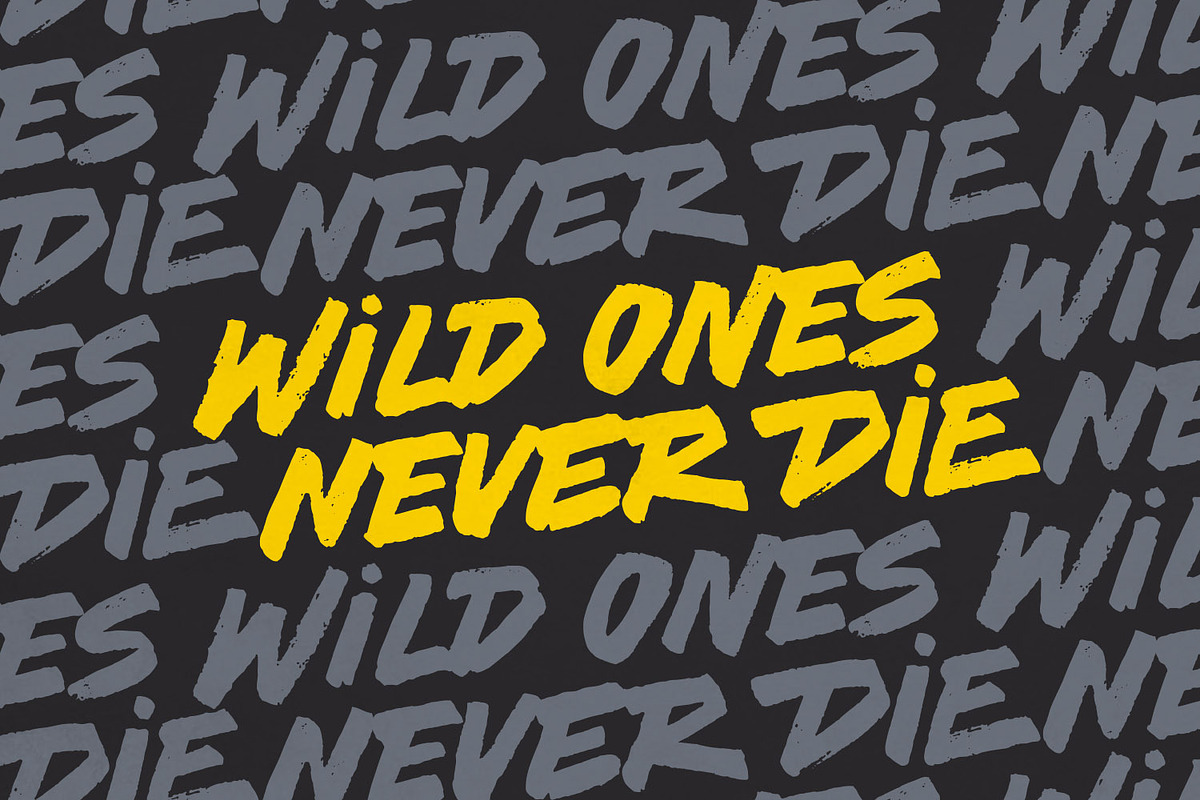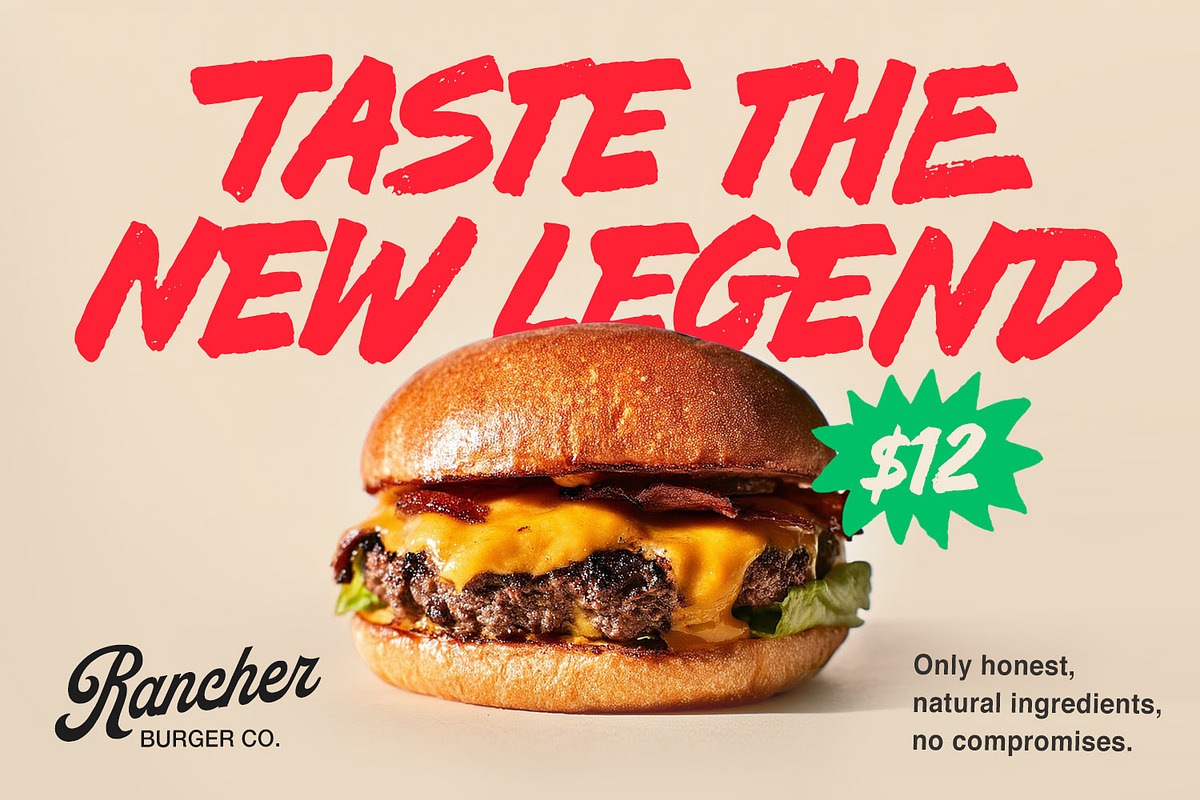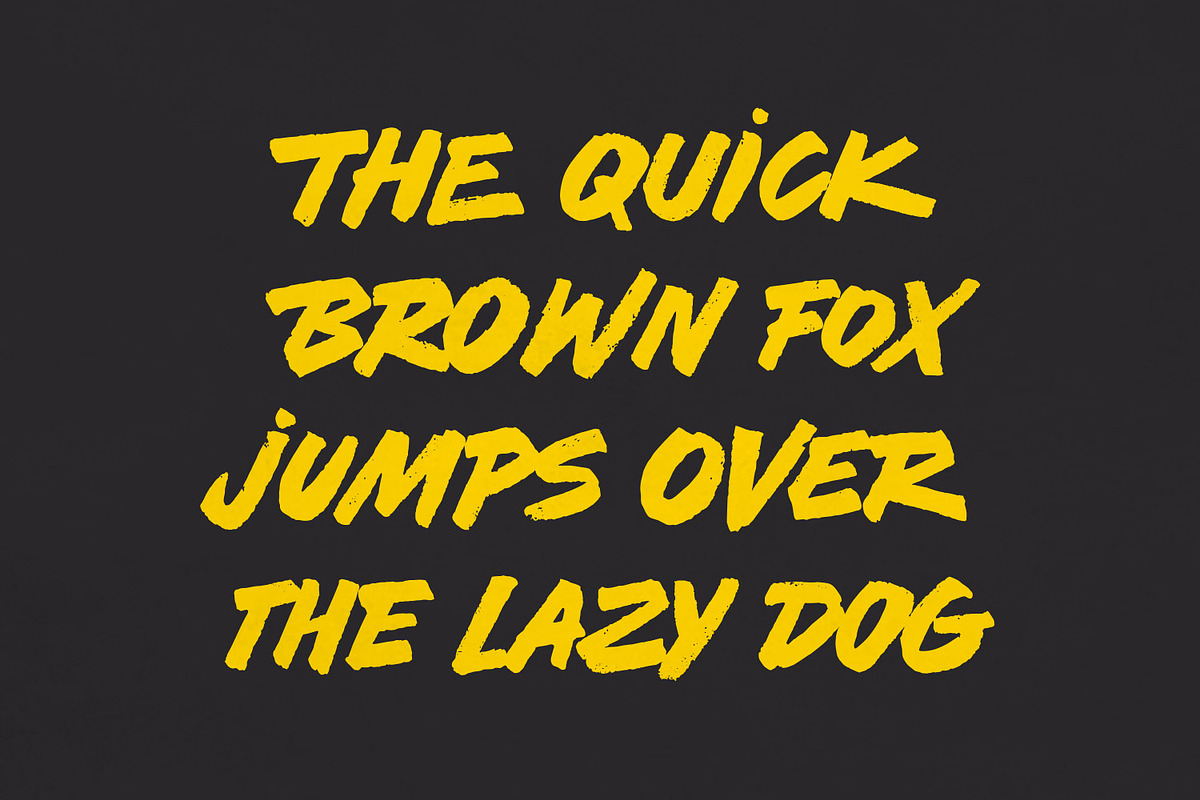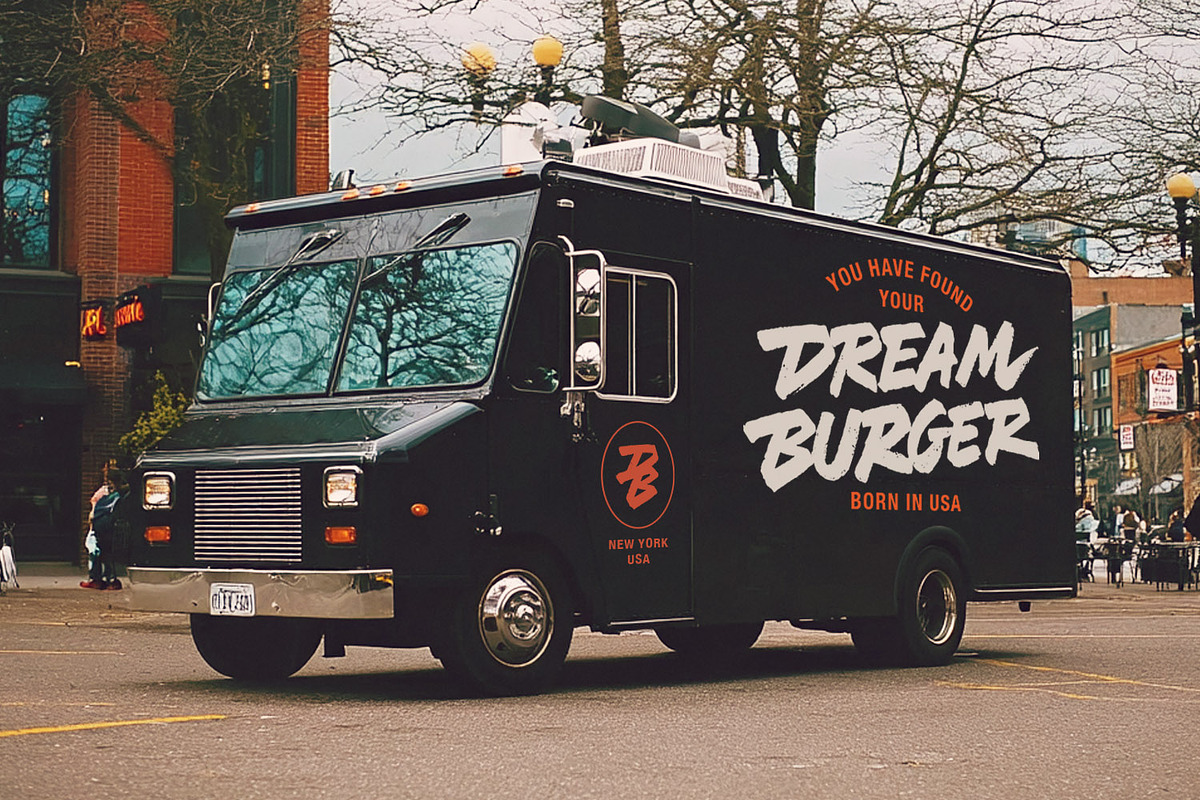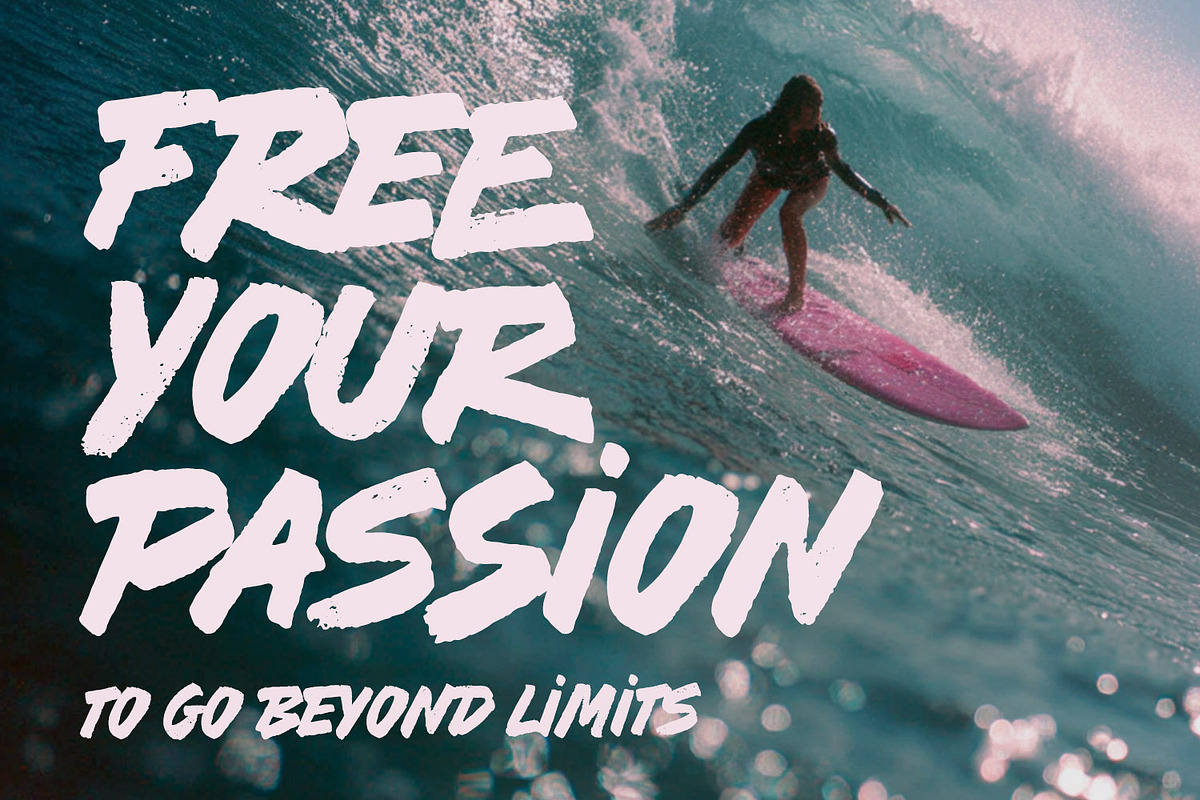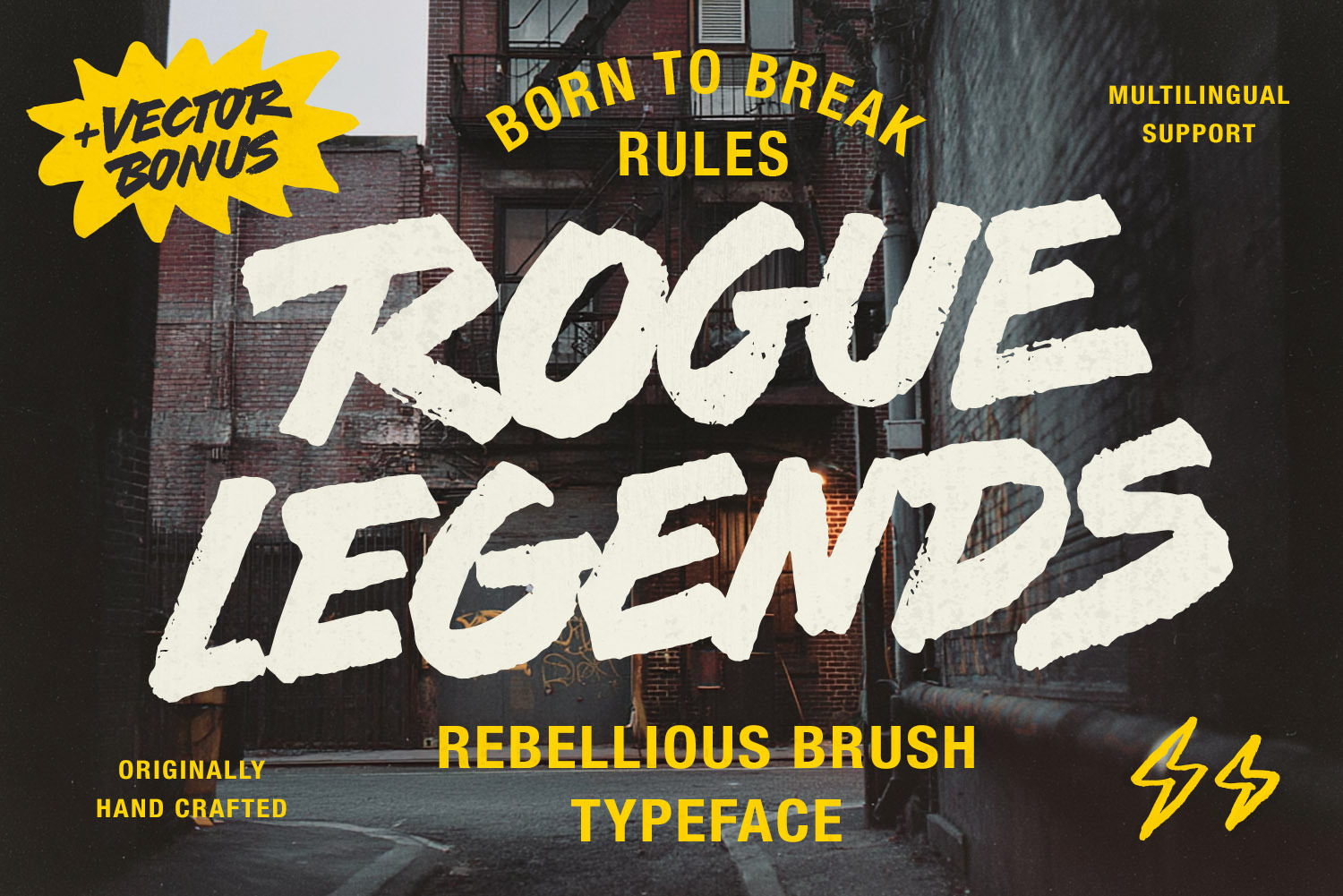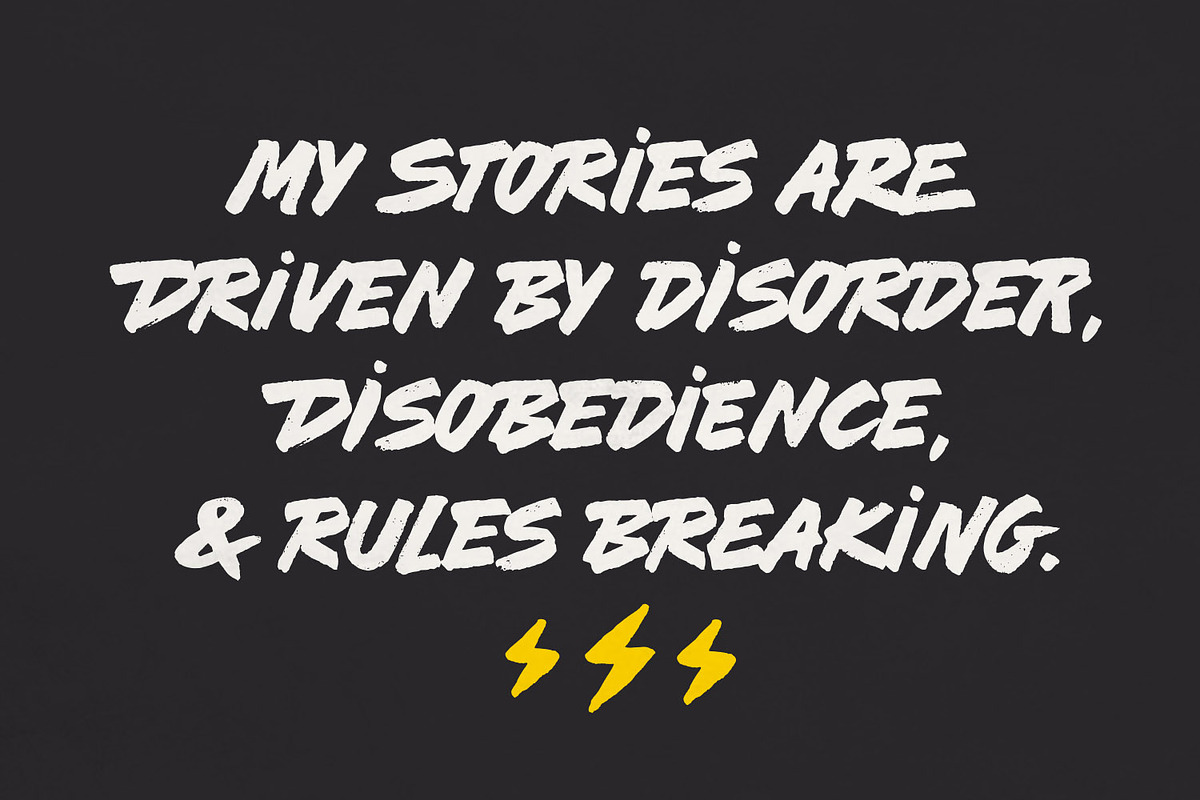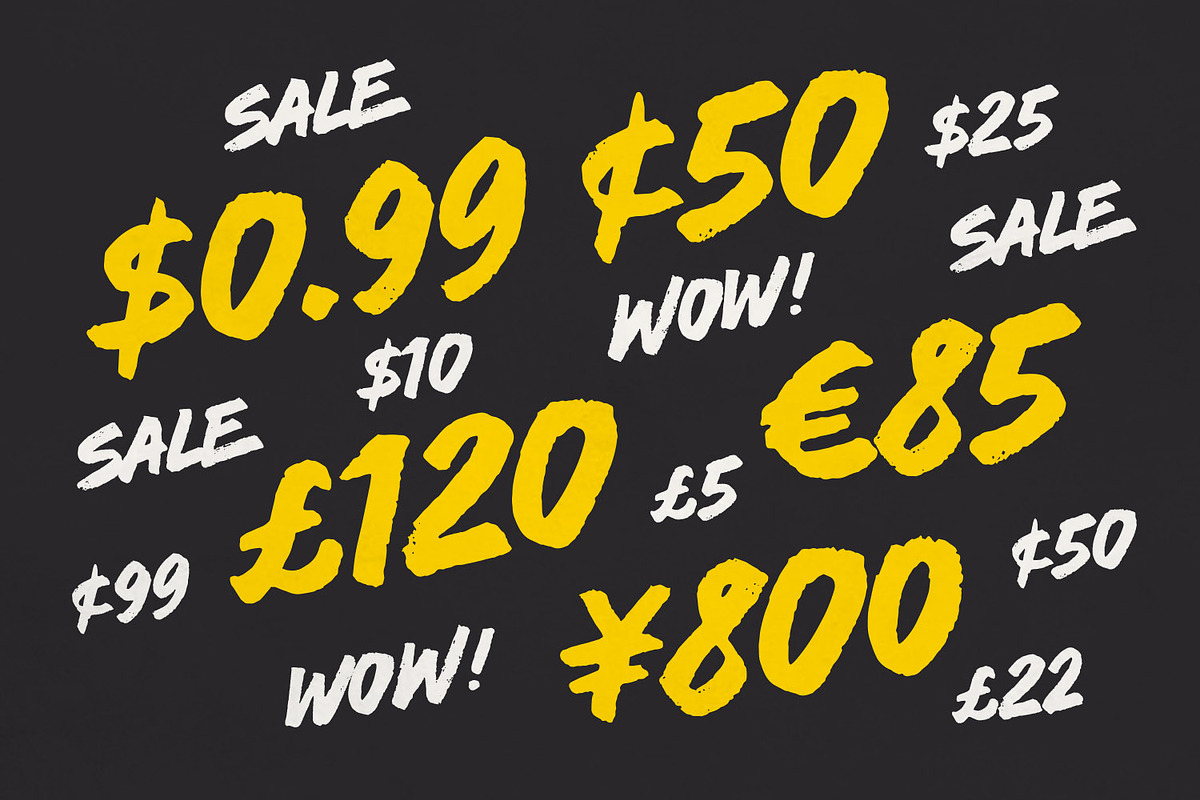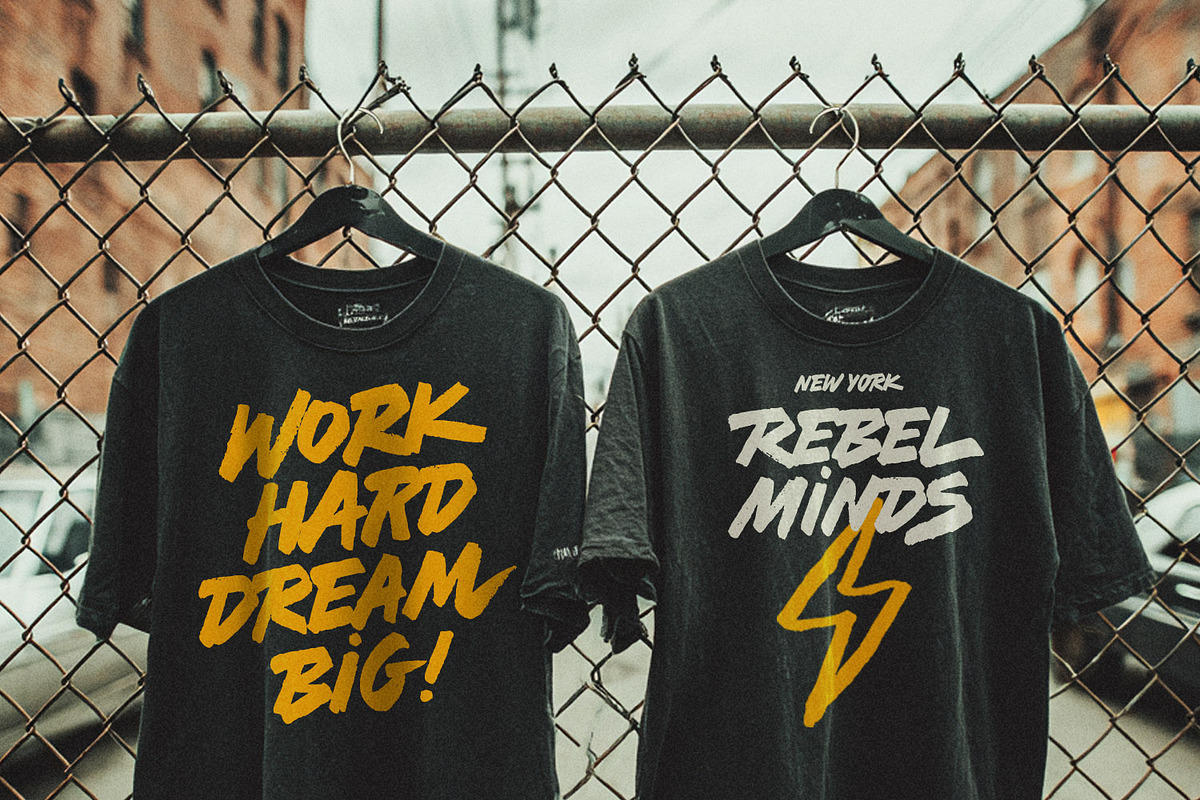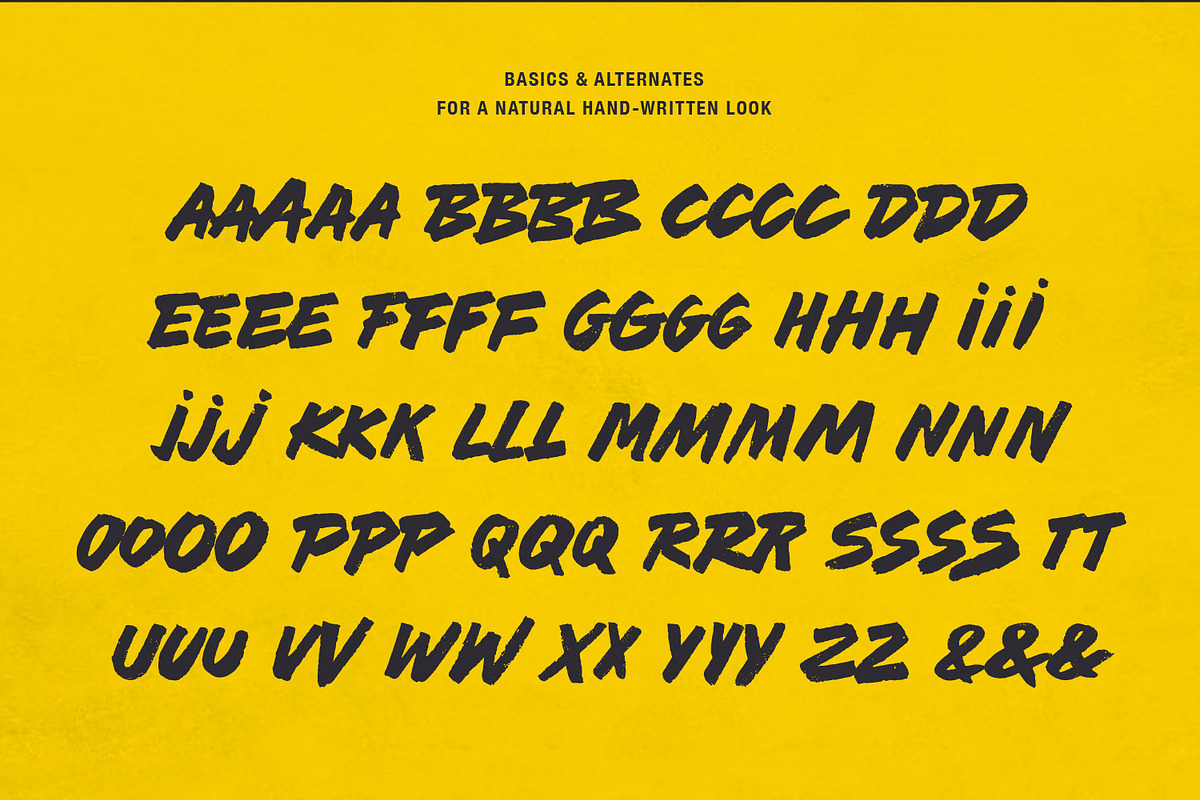
Rogue Legends - Brush Font
Rogue Legends is a rebellious brush typeface made for bold statements and fearless projects. Inspired by street culture, extreme events, underground cinema, and hand-painted lettering, it brings raw energy and attitude into every word. With its rough brush texture, dynamic strokes, and imperfect edges, Rogue Legends feels alive and expressive — as if written in one powerful motion. It’s designed to stand out, grab attention, and break the rules of clean, polite typography.
This typeface works perfectly for:
- Posters & headlines
- Branding & logos
- Apparel & merchandise
- Album covers & packaging
- Food, music, horror, and street-inspired visuals
- All-сaps characters
- Stylistic and Contextual Alternates (Basic Latin only)
- Numbers and Punctuation
MULTILINGUAL (base glyphs, no accented alternates) Rogue Legends works with the following languages: Danish, Dutch, English, Estonian, Faroese, Finnish, French, German, Hungarian, Icelandic, Italian, Norwegian, Polish, Portuguese, Slovene, Spanish, Swedish, and Turkish.